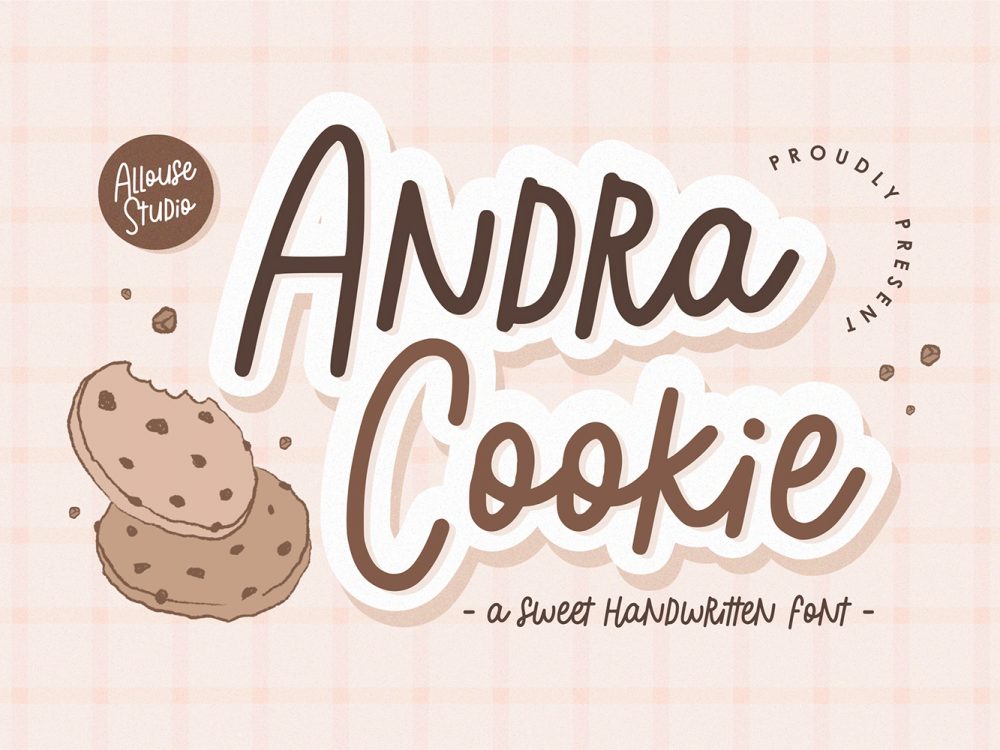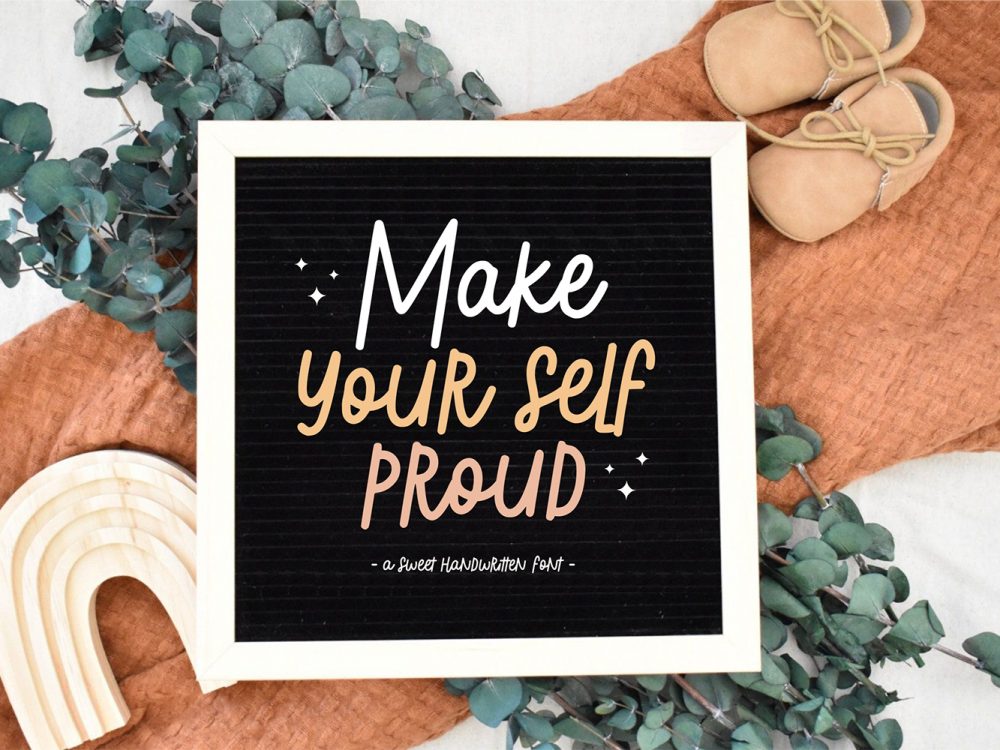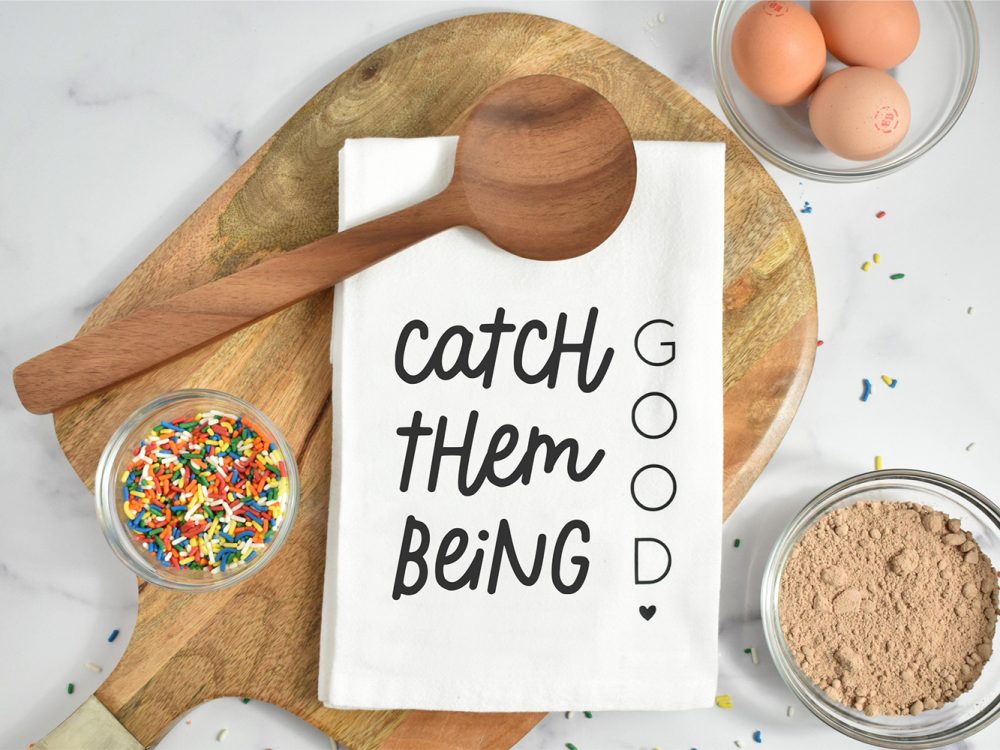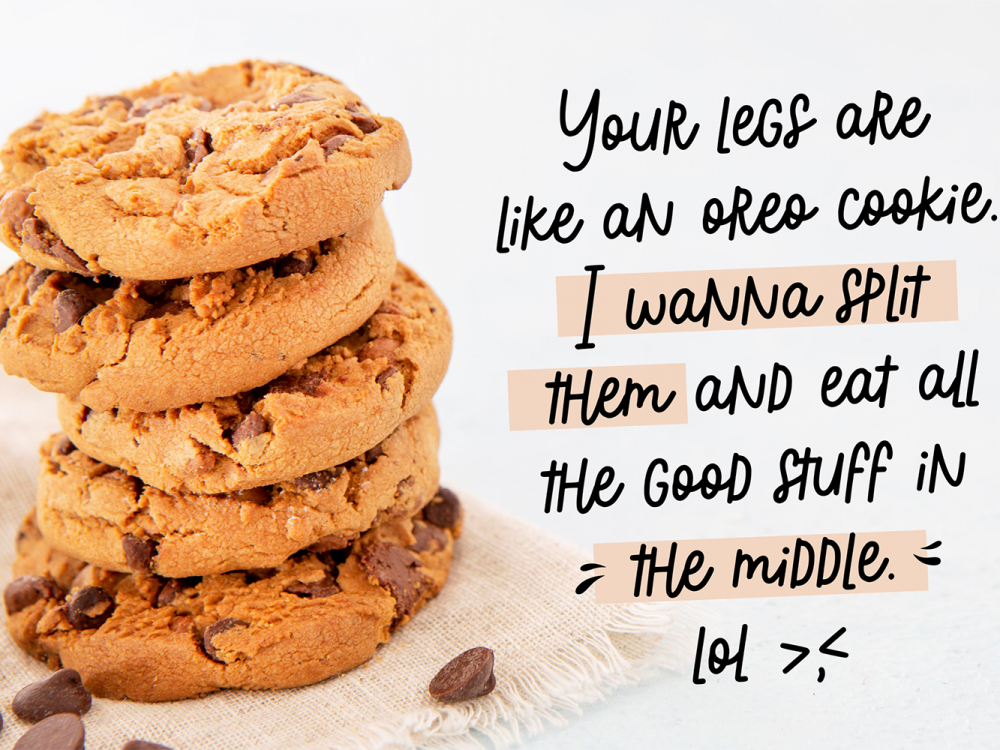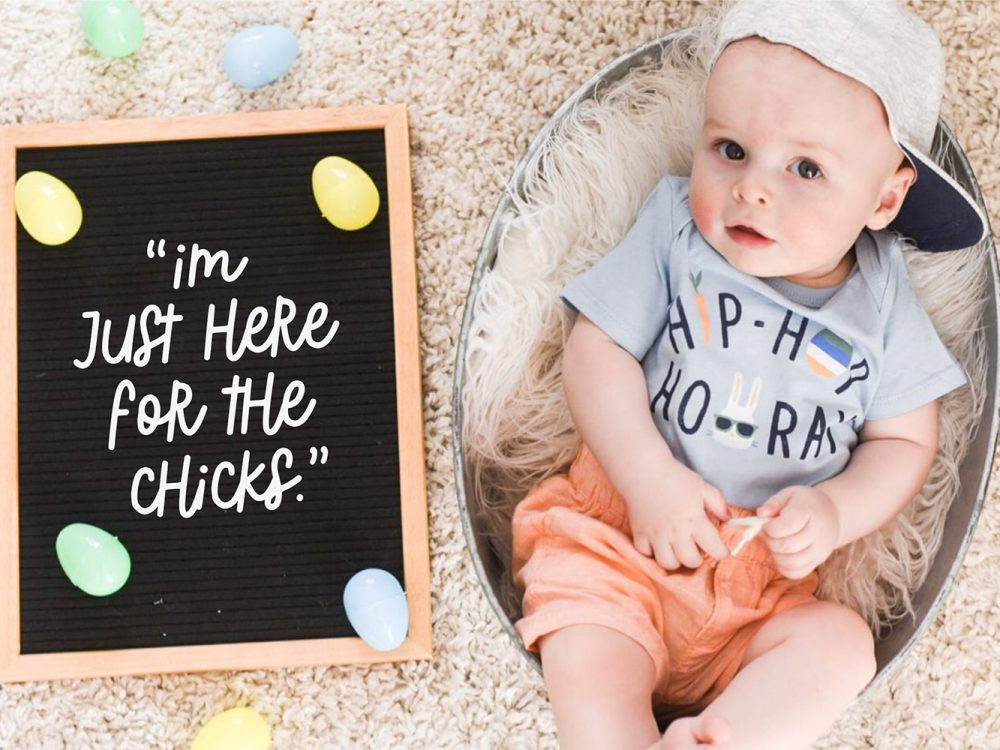
Andra Cookie Free Font
Andra Cookie Free Font is a playful, joyful font that brings a sense of cheer and fun to any project. Its curvy, playful letters and whimsical details are sure to bring a smile to anyone’s face. With Andra Cookie, you can add a touch of whimsy and warmth to any design, whether you’re creating invitations, posters, or social media graphics. This font is perfect for anyone looking to add a dash of personality and emotion to their work. So go ahead, let Andra Cookie add some sugar and spice to your next project! If you like it don’t forget to check out the full version.